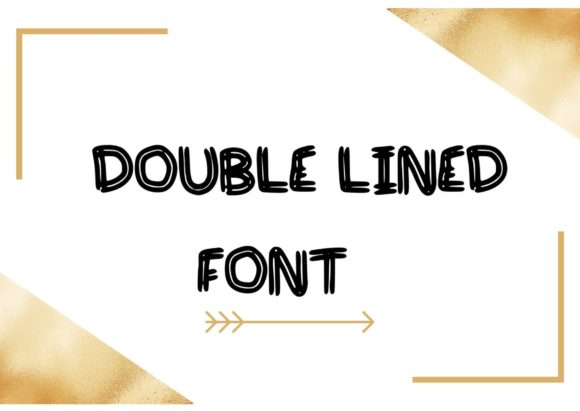
Welcome to the world of Double Lined, a display font that exudes charm and playfulness. With its unique double-lined design, this font adds a touch of whimsy and uniqueness to any project. Whether you're creating logos, invitations, posters, or social media graphics, Double Lined is sure to make your designs stand out.
Crafted by the talented team at CREATILORY, Double Lined is not just a font; it's an experience. Its meticulously crafted characters dance across the page, creating a visual symphony that captivates and engages. Each letterform is a work of art, featuring intricate details and flowing lines that add depth and dimension to your designs.
But Double Lined is more than just a pretty face. It's also incredibly versatile, adapting seamlessly to a wide range of design styles. From elegant and sophisticated to playful and whimsical, Double Lined can effortlessly elevate any project. Whether you're working on a branding project, a website design, or a personal craft, Double Lined will add a touch of magic to your creations.
So if you're looking for a font that's both stylish and functional, look no further than Double Lined. Its charming double-lined design, meticulous craftsmanship, and unparalleled versatility make it the perfect choice for designers of all skill levels. Let Double Lined take your designs to new heights and create projects that leave a lasting impression.